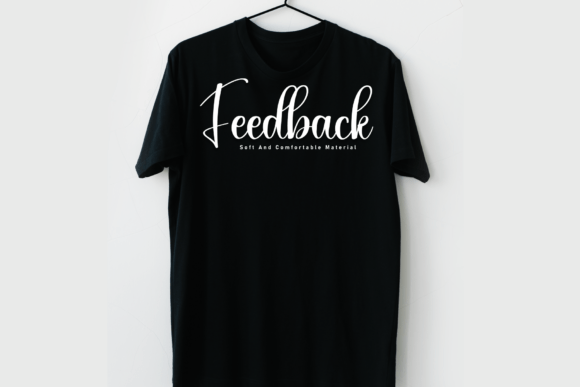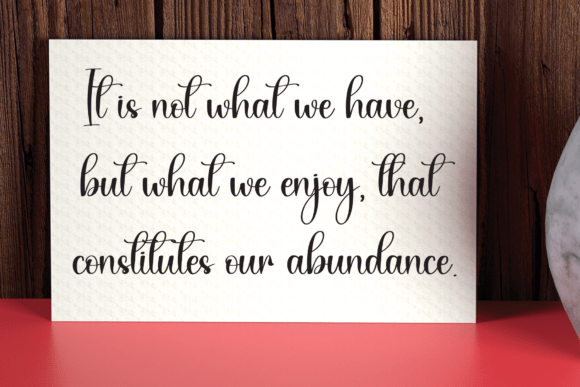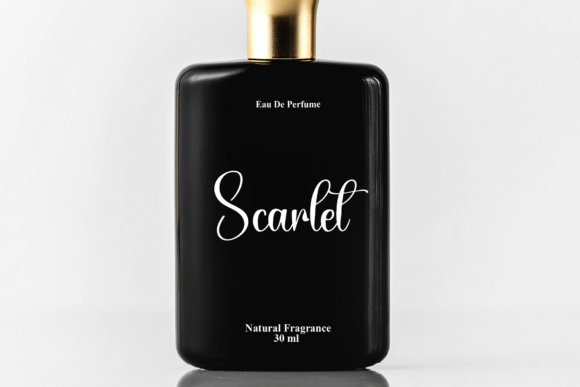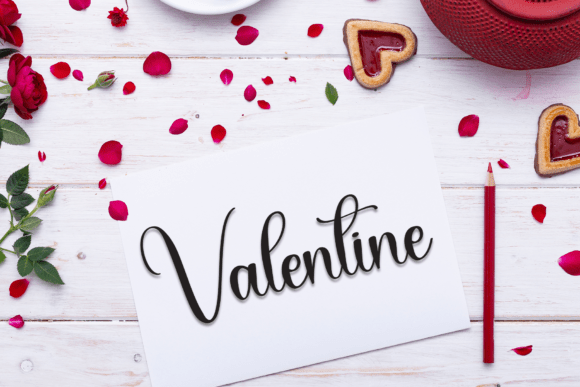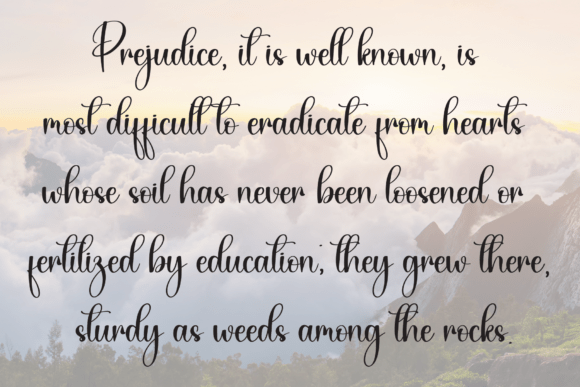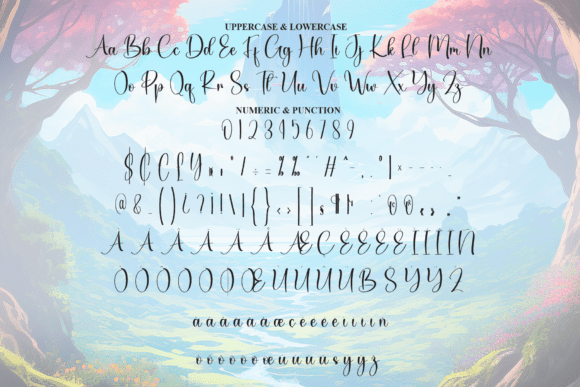
The Magic of Fantasy Font: Elevating Your Designs with Elegance and Charm
Have you ever been in the middle of a design project, and suddenly, you’re stuck on finding the perfect font? I recall a particularly frustrating experience while working on a branding project for a luxury wedding planner. The client wanted a font that exuded elegance, sophistication, and a touch of whimsy. After hours of searching, I stumbled upon Fantasy Font, a stylish handwritten script font that instantly captured the essence of the brand. In this article, I’ll share my love for Fantasy Font, its features, and how to make the most of it in your designs.
An Honest Review of Fantasy Font
Fantasy Font has become a staple in my design toolkit, and here’s why:
- ✨ Elegant and Modern: Fantasy Font combines classic elegance with a modern twist, making it perfect for a wide range of projects.
- ✅ Versatile: Its flowing strokes and organic curves bring warmth and sophistication to any design, from branding to social media.
- ✅ Effortless Charm: This font adds a personal, refined touch to your designs without looking too formal or generic.
However, no font is perfect, and Fantasy Font has a few quirks:
- 🤔 Limited Use in Small Sizes: While Fantasy Font looks stunning in larger sizes, it may lose some of its charm when used in smaller sizes (e.g., body text).
- ⚠️ Glyph Limitations: Some users might find the glyph set limited, especially when compared to more extensive font libraries.
The Story Behind Fantasy Font
According to its creators, Fantasy Font was inspired by the beauty of handwritten calligraphy and the elegance of modern typography. The goal was to craft a font that would bring a touch of sophistication and whimsy to any design. While the actual story behind Fantasy Font might be fictional, its impact on the design community is undeniable.
| Font Name | Fantasy Font |
| Author | Misterletter.co |
| Does Fantasy Font include OpenType features? | Yes, Fantasy Font supports OpenType features, including stylistic alternates, ligatures, and more. |